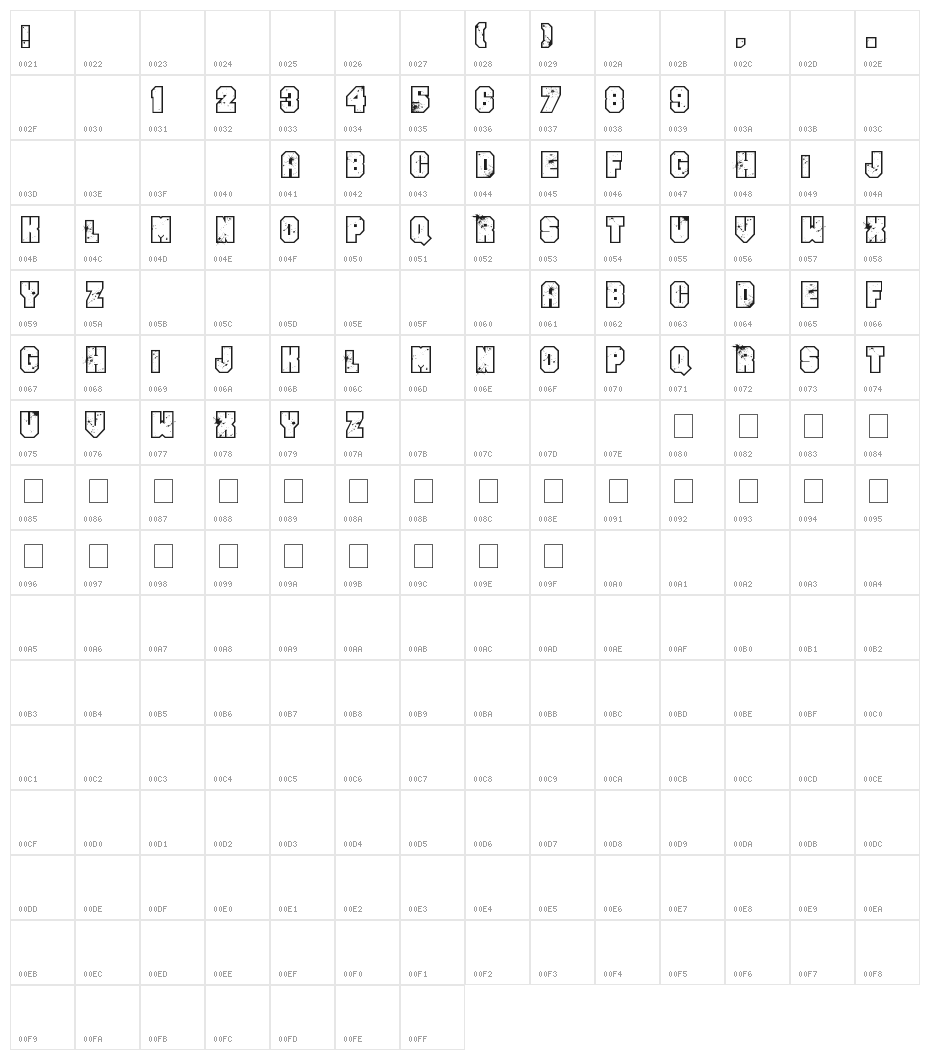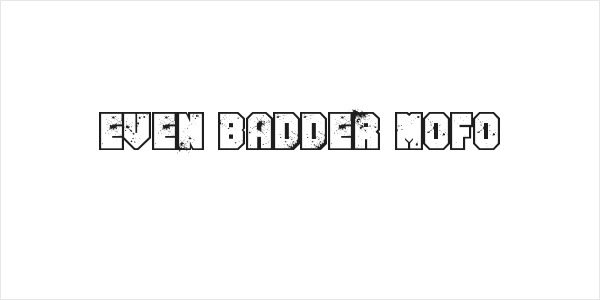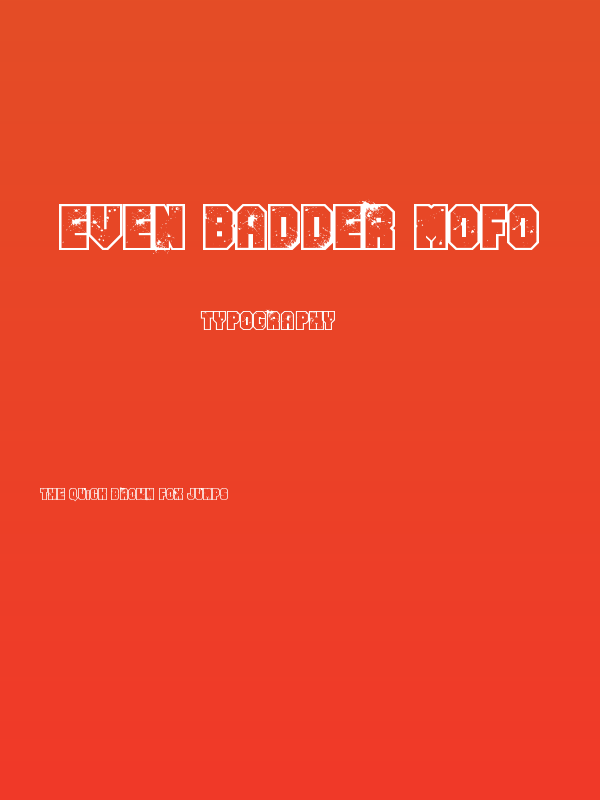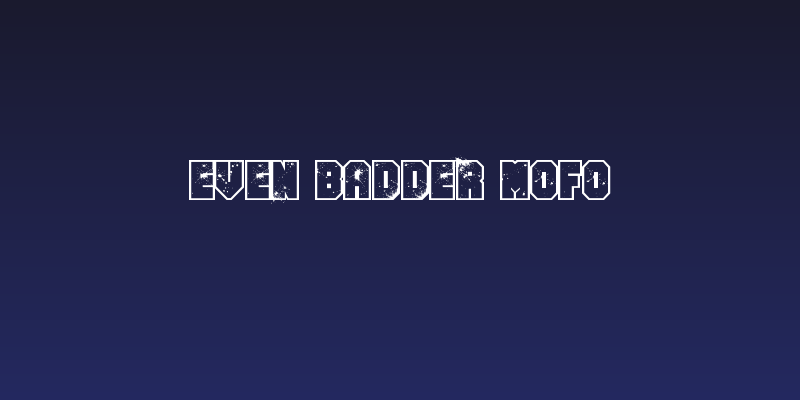
Even Badder Mofo Font
Even Badder Mofo Description
This font features a bold, rugged design with a distressed texture that gives it a gritty, worn appearance. The characters are outlined with a thick border, enhancing their boldness and making them stand out. The distressed effect adds a sense of toughness and edginess, making it ideal for projects that require a strong, impactful look. The uppercase letters are uniform in size, providing a consistent and cohesive appearance. The numbers and special characters maintain the same distressed style, ensuring a unified design across all elements.
Overall StyleRugged, Edgy, Impactful
Proposed ProjectsIdeal for posters, album covers, video game titles, and branding that requires a tough, edgy look.